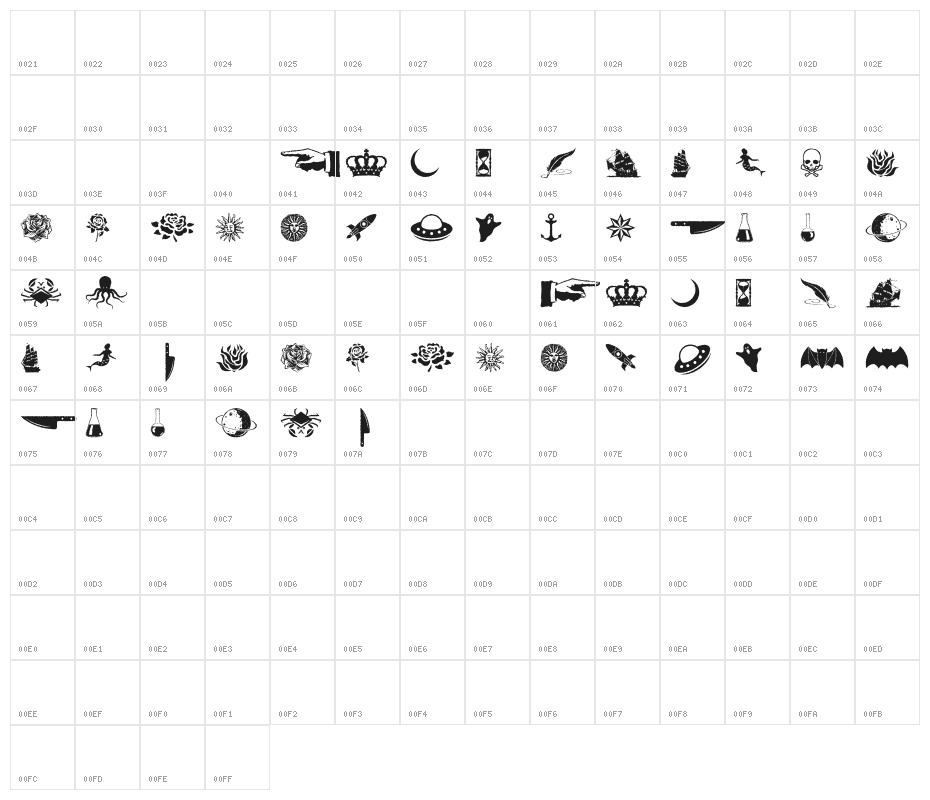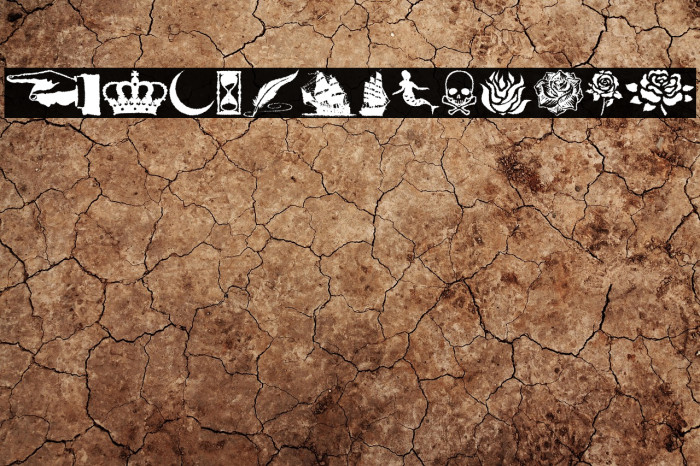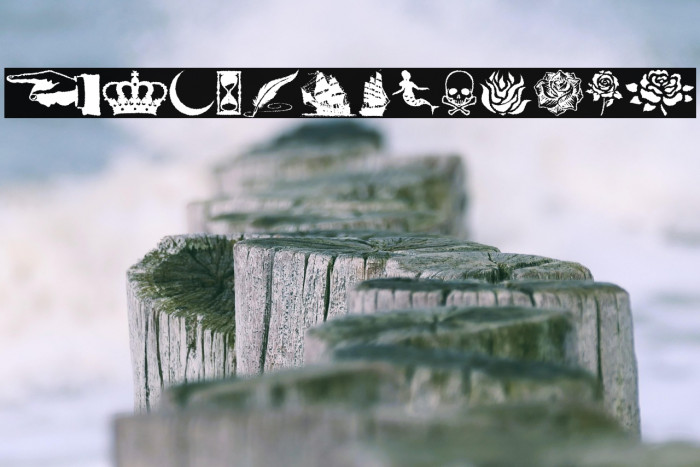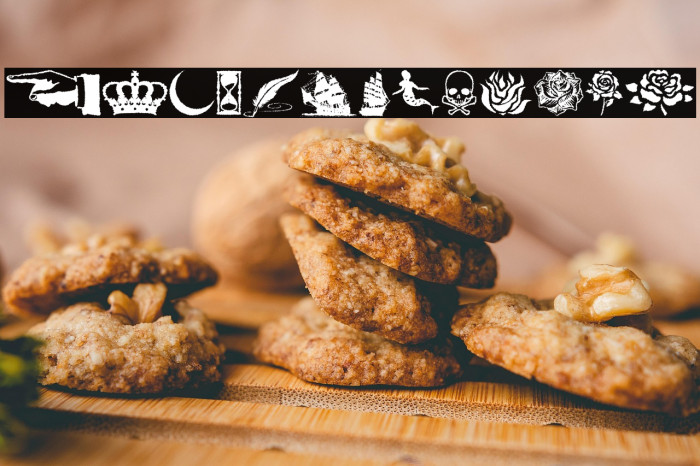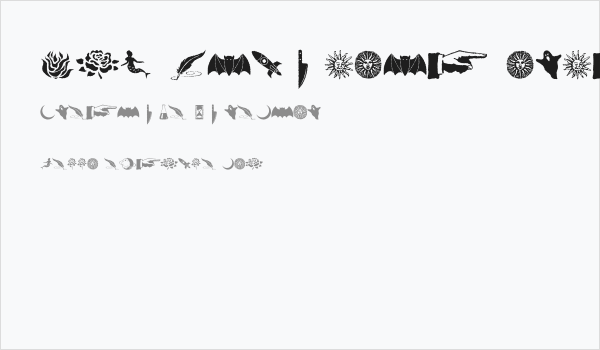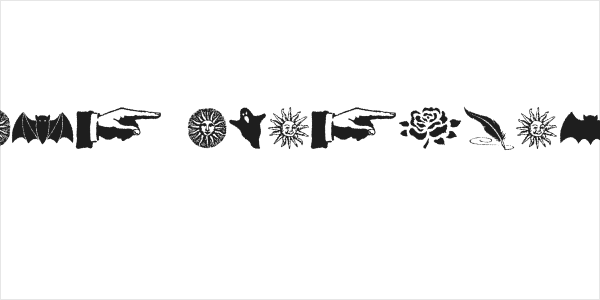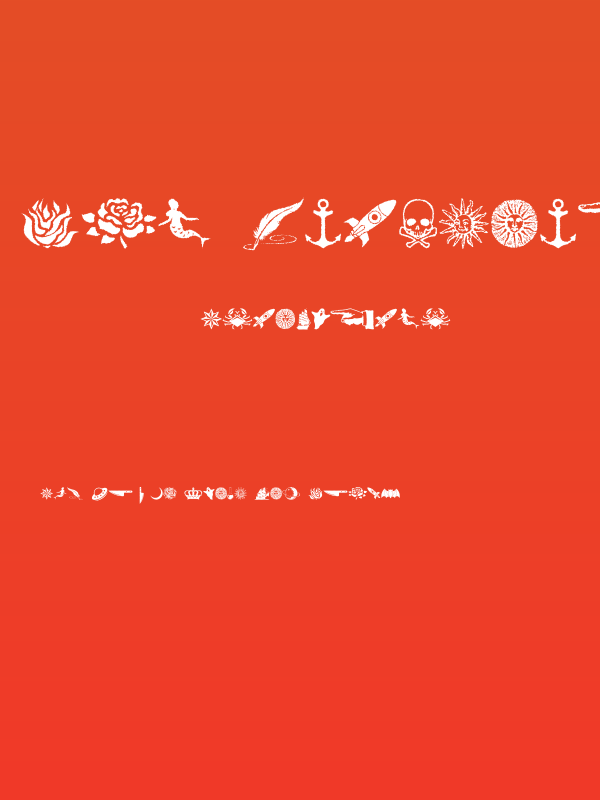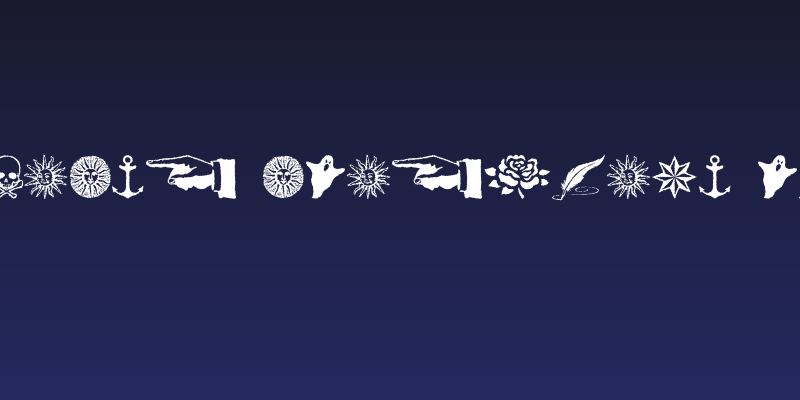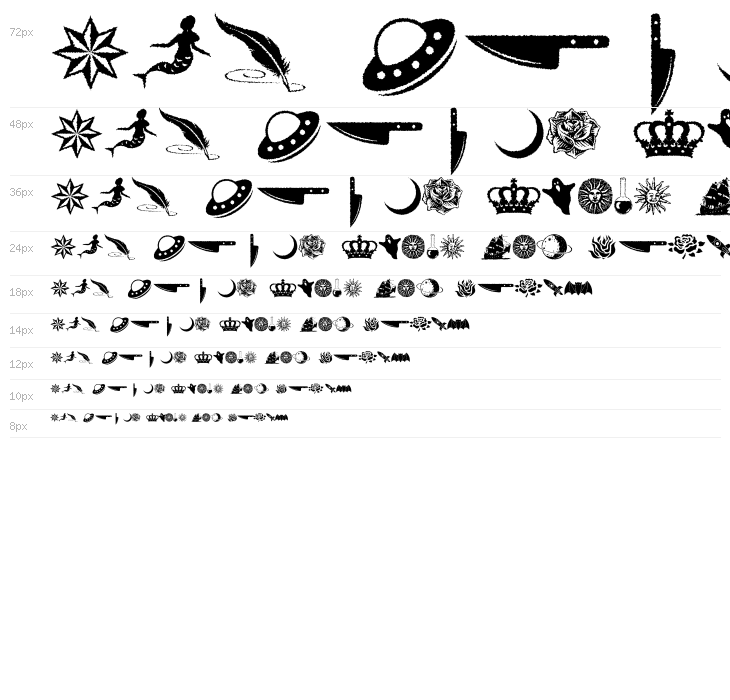
JMH Espinosa Ornaments Regular Font
JMH Espinosa Ornaments Regular Description
This collection features a diverse array of ornamental symbols, each meticulously crafted to convey a unique theme or concept. The designs range from nautical elements like ships and anchors to celestial motifs such as moons and stars. There are also whimsical and mythical figures like mermaids and ghosts, alongside more traditional symbols like crowns and roses. The intricate detailing and bold outlines make these ornaments stand out, suitable for a variety of decorative purposes.
| Use Case | Logos, Decorative elements, Themed designs |
| Proposed Projects | Ideal for use in graphic design projects, scrapbooking, themed invitations, or as decorative elements in digital and print media. |